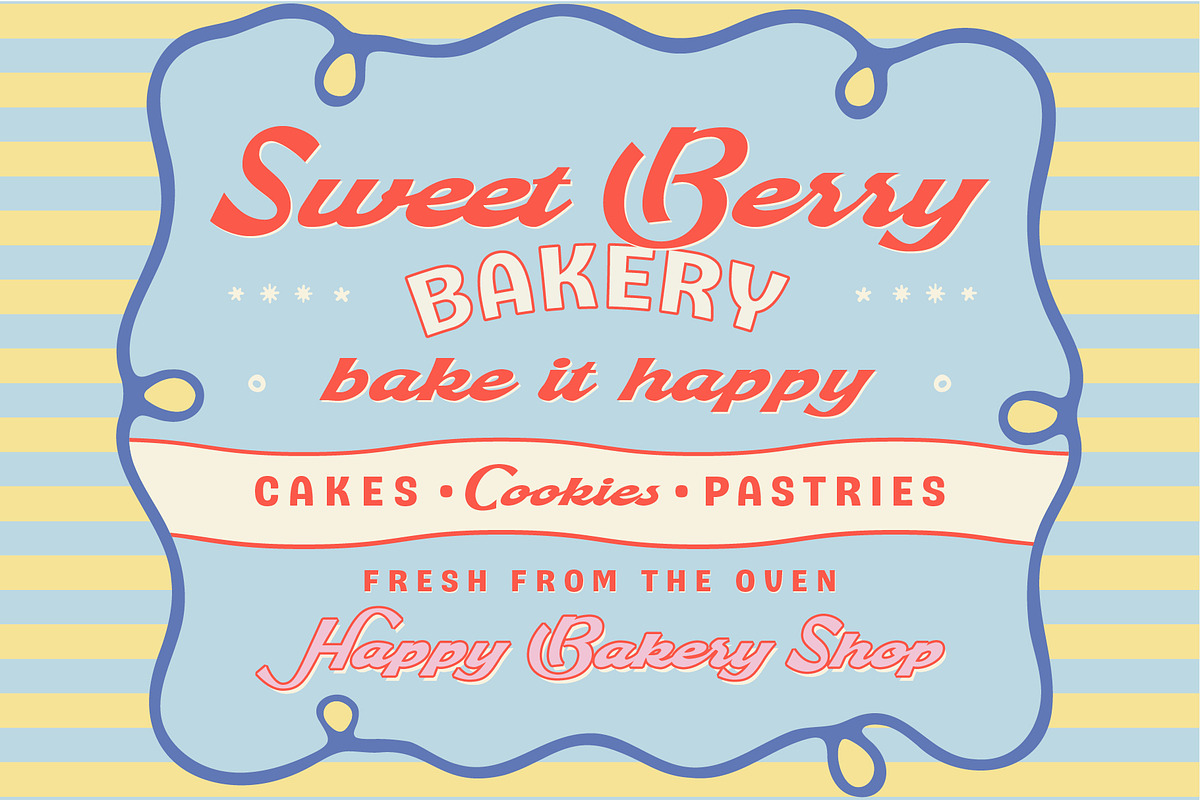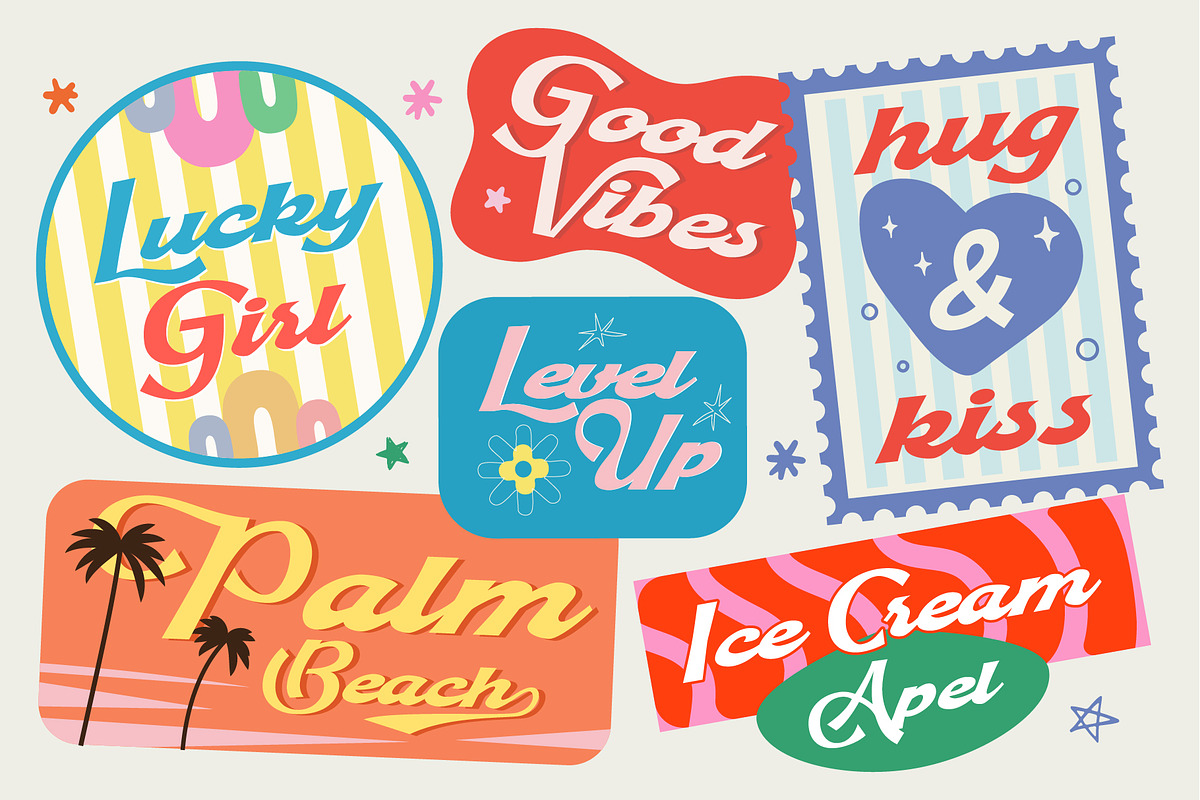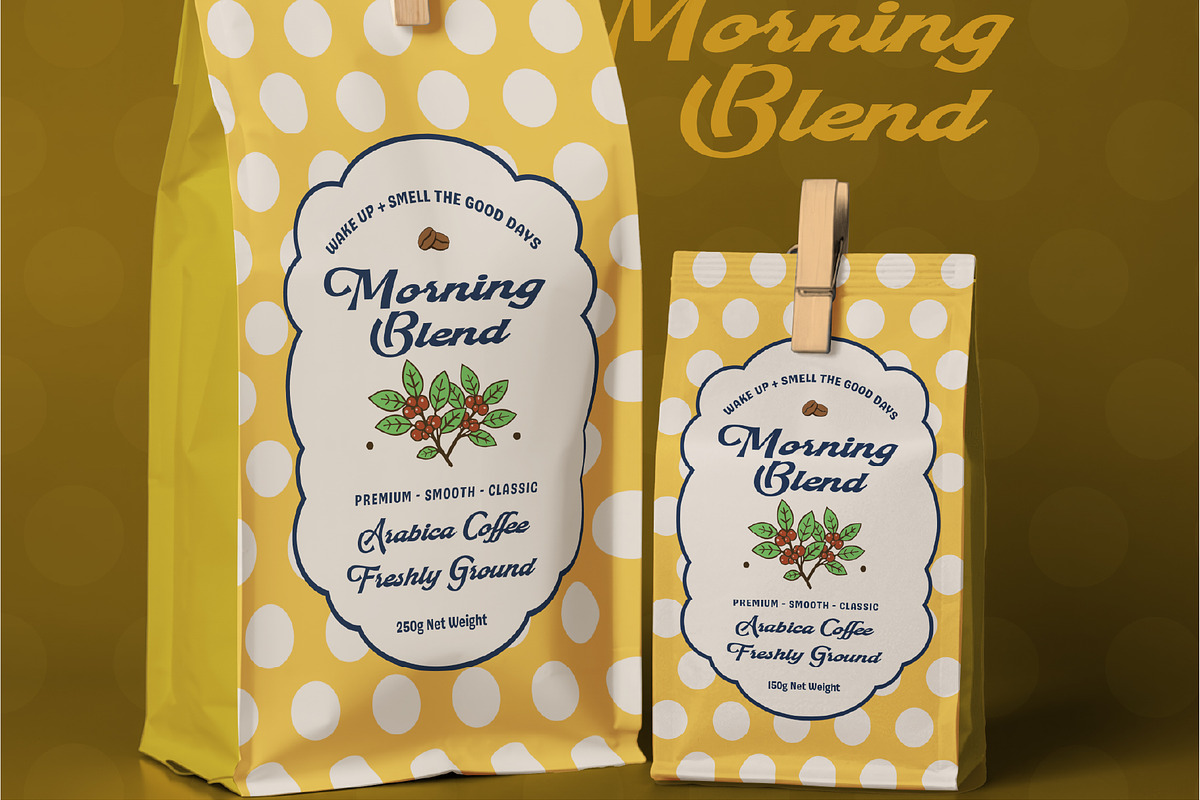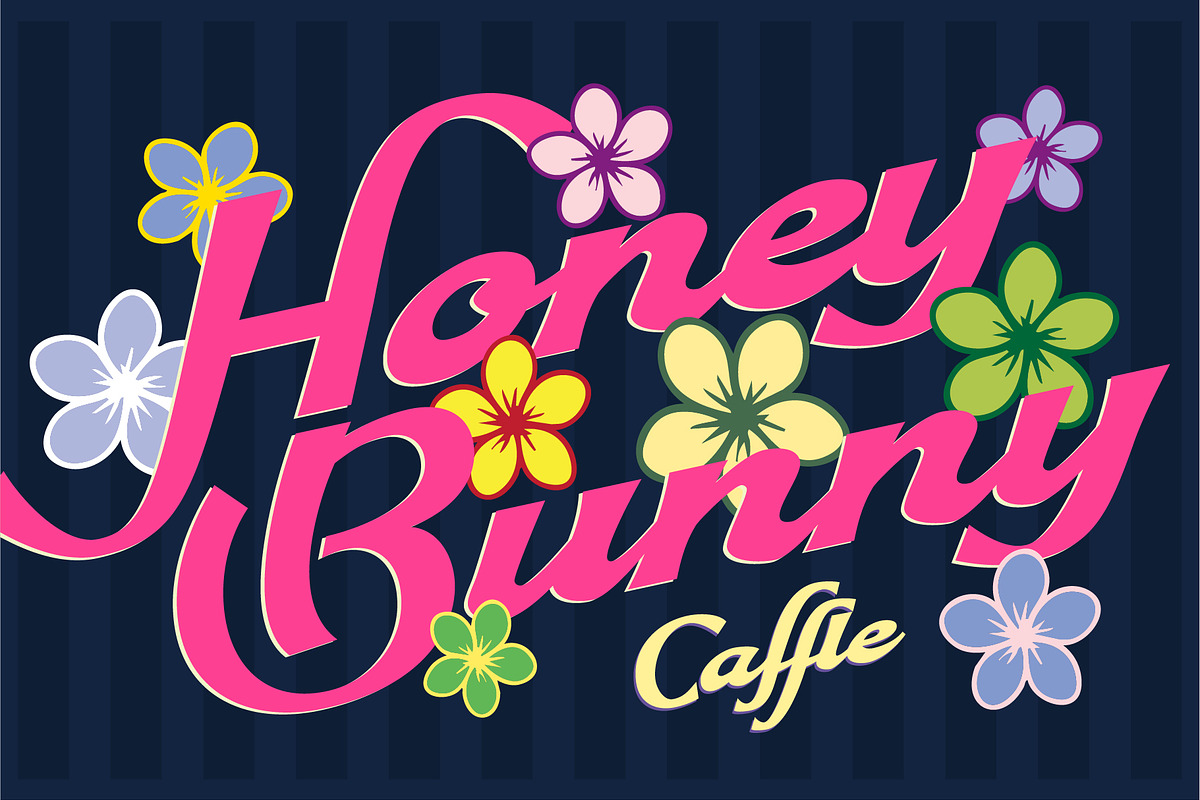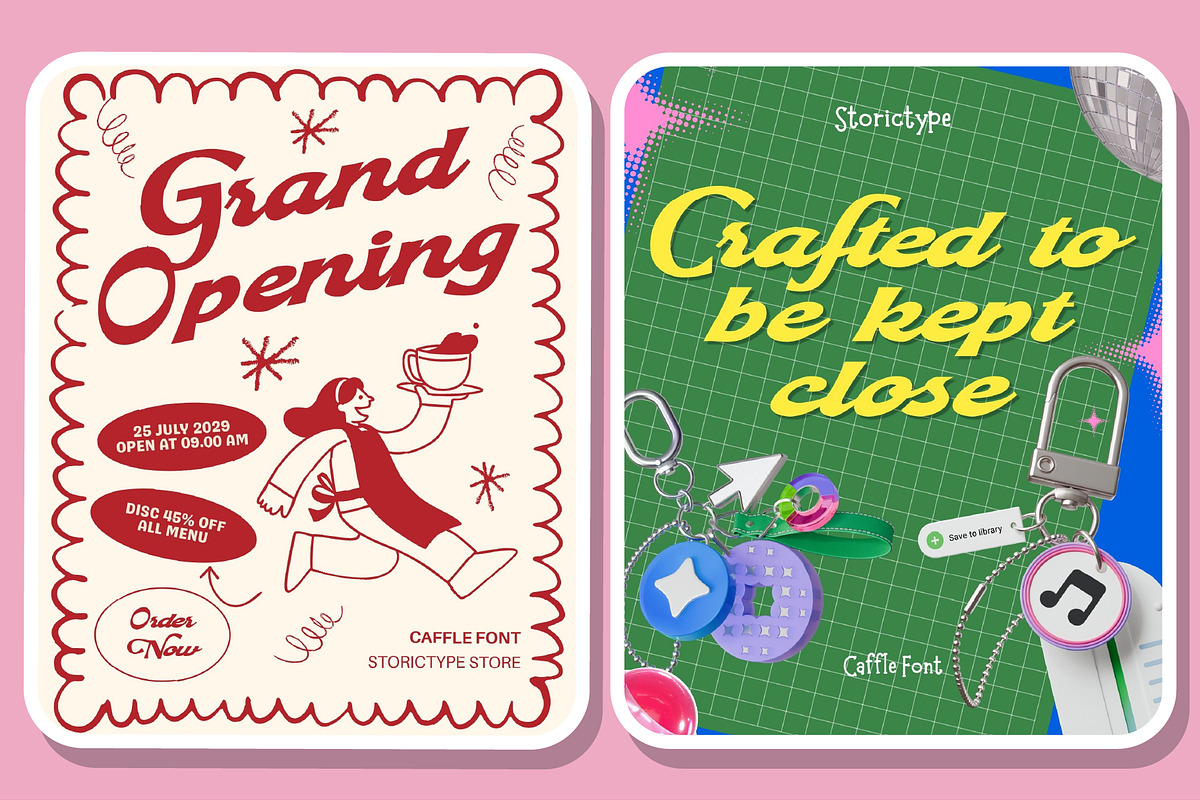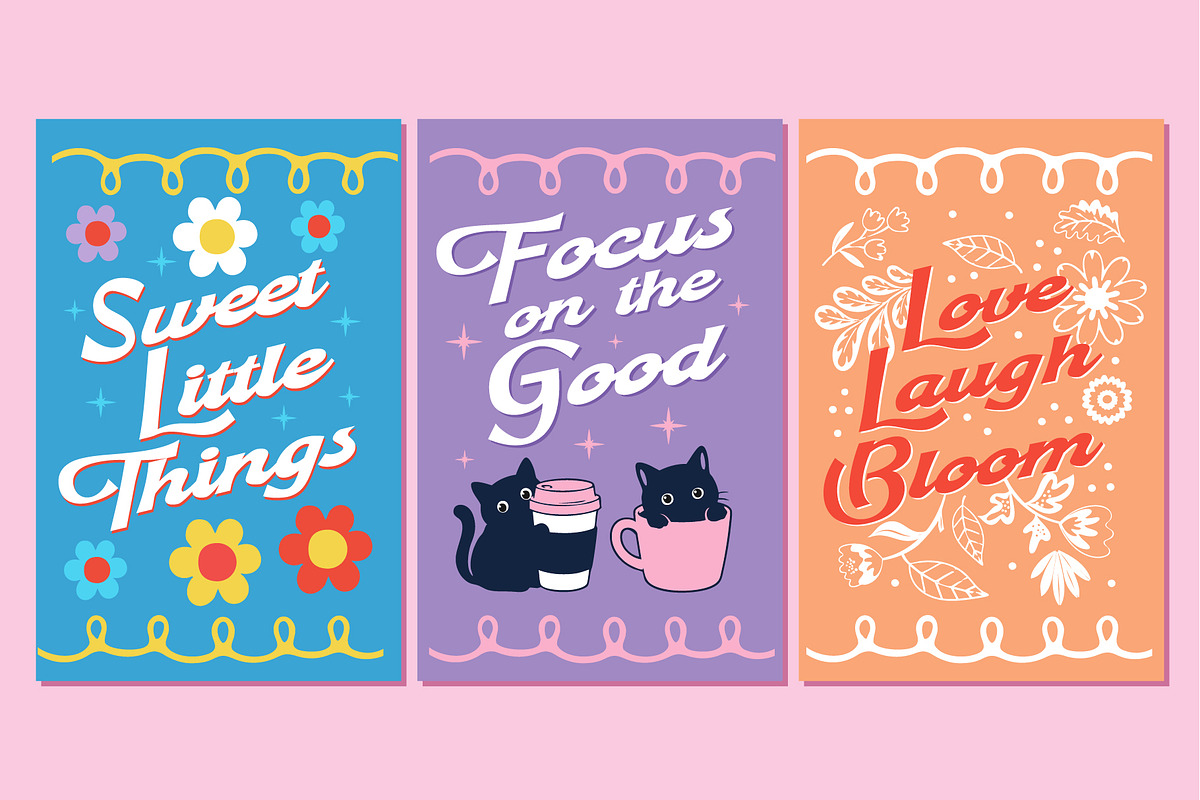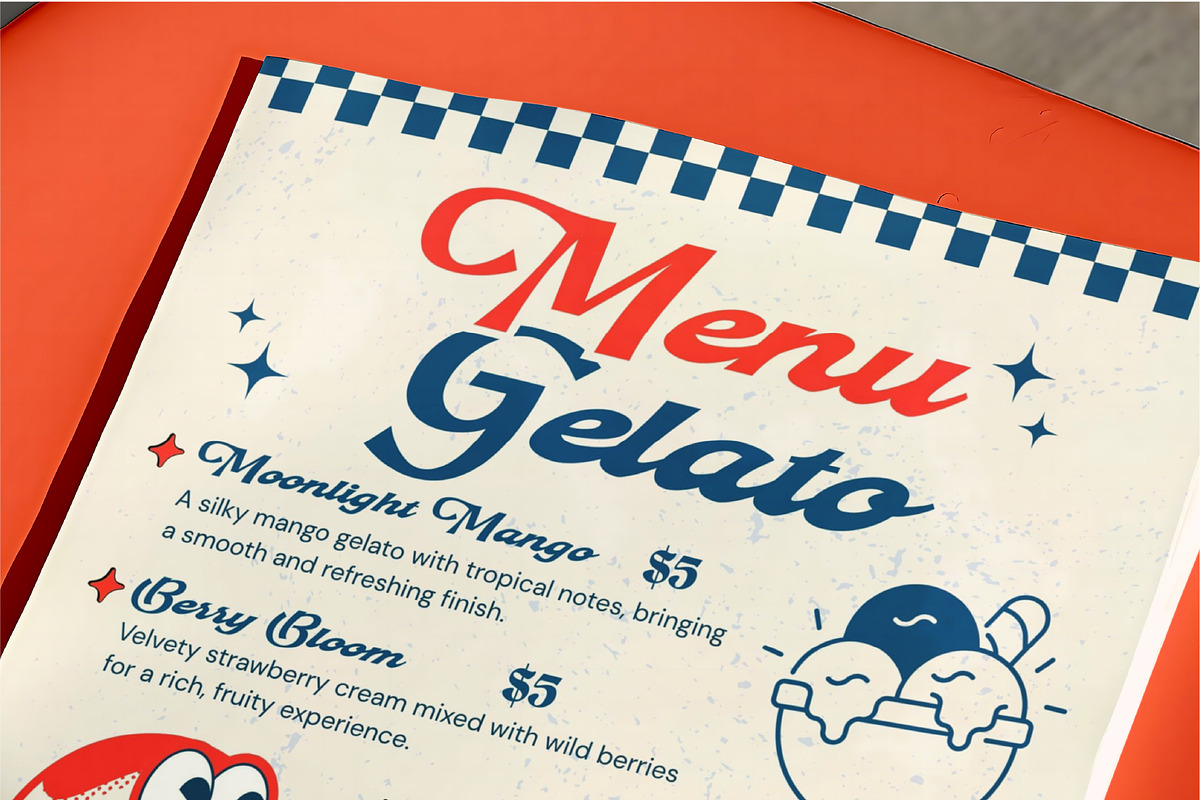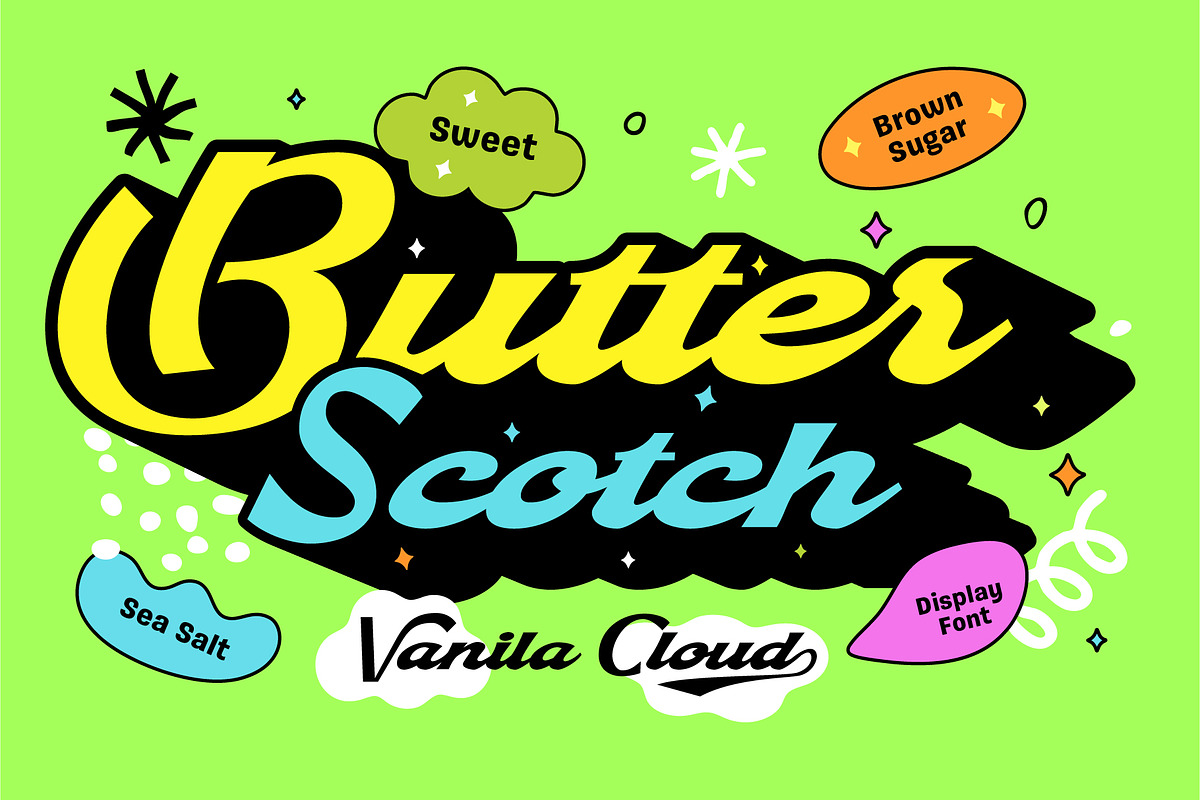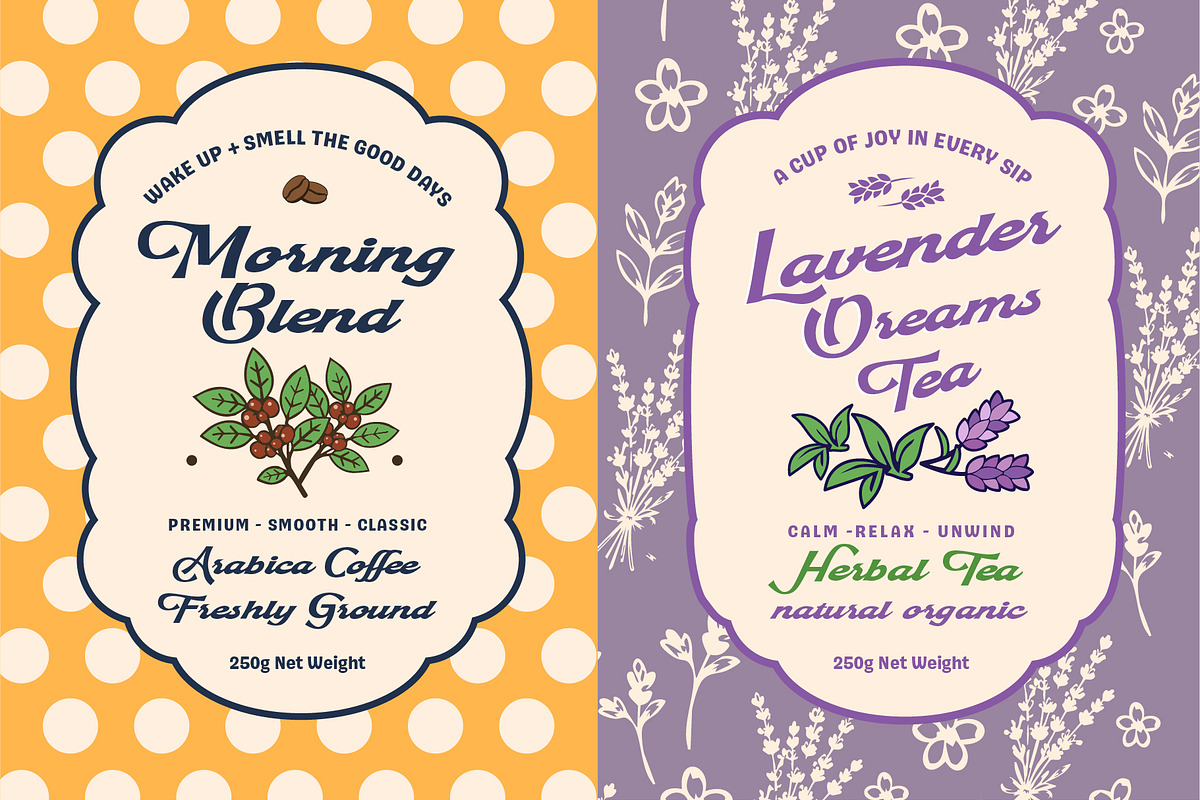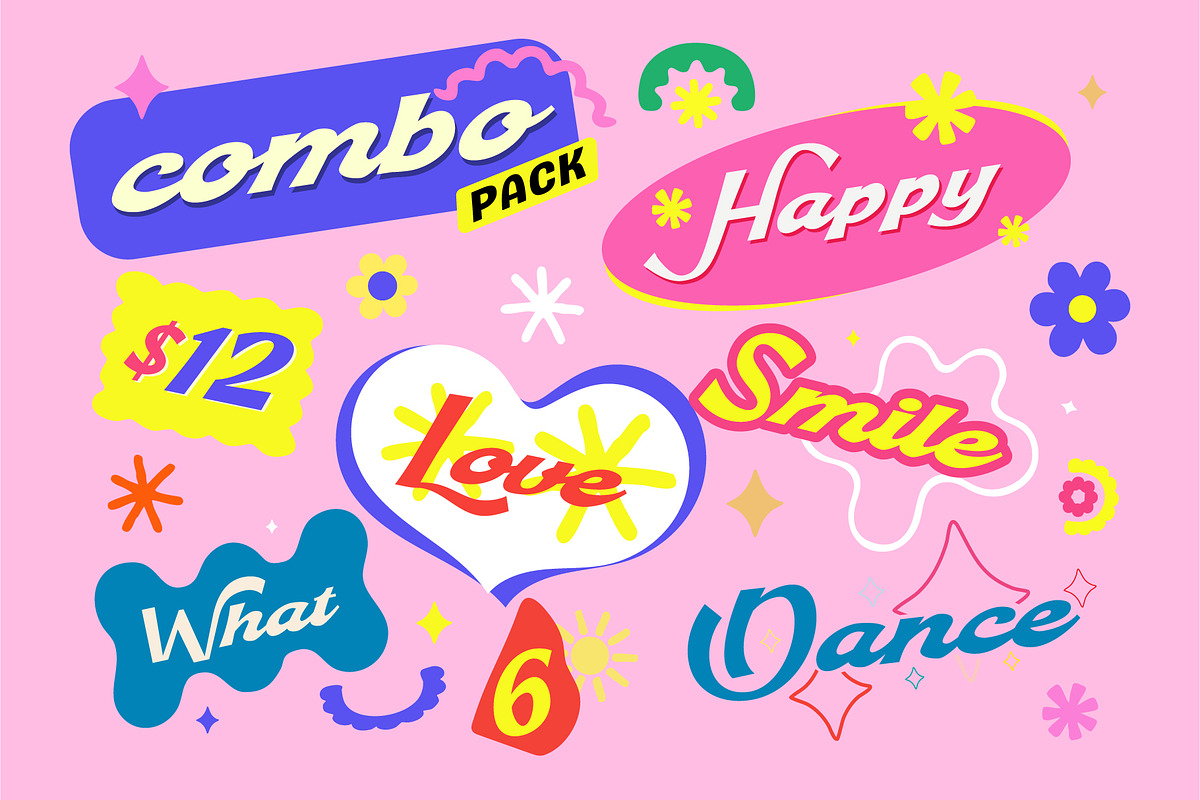
Caffle - Expresive Display Font
Caffle is a bold and expressive display font created to bring a fun, playful, and energetic personality to your designs. With its chunky letterforms and dynamic shapes, Caffle is perfect for projects that need a strong visual impact with a cheerful handmade feel.
Designed to stand out, Caffle works beautifully for posters, branding, packaging, social media graphics, apparel, stickers, invitations, merchandise, headlines, and creative editorial designs.
Whether you're creating a colorful Y2K-inspired project, a playful brand identity, a fun campaign, or an eye-catching headline, Caffle adds an instant dose of personality to your typography.
Perfect For :
Posters & Flyers
Branding & Logo Design
Social Media Content
T-Shirt & Apparel Design
Stickers & Merchandise
Invitations & Greeting Cards
Editorial & Magazine Covers
Children's & Playful Designs
Headlines & Display Typography
"Make your words pop, have fun with your typography, and let Caffle bring personality to every design!"